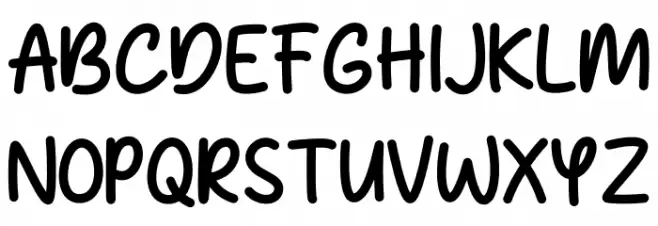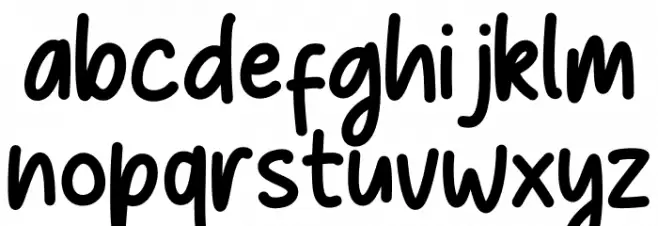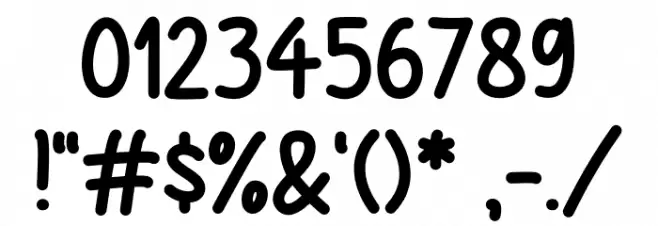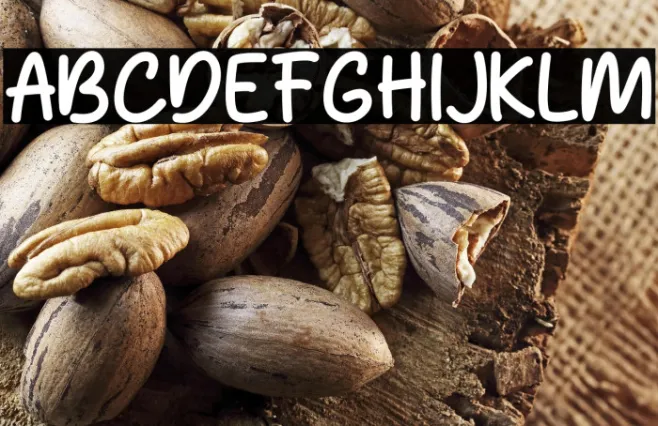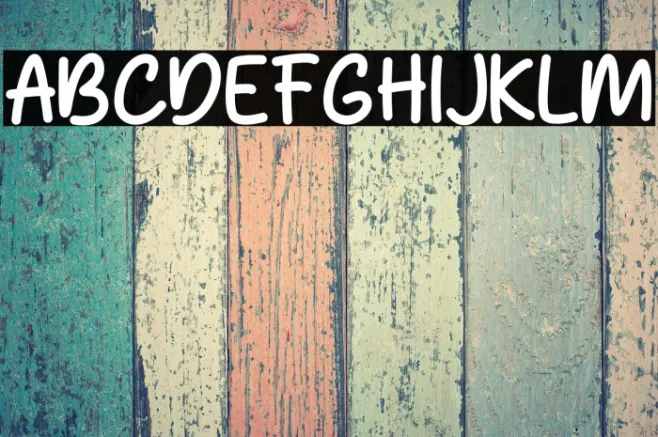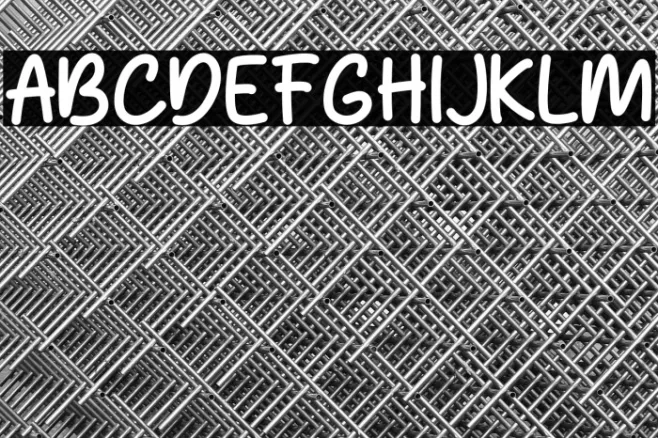
Winter Night Font
Winter Night Description
This font features a playful and casual handwritten style, characterized by its rounded and slightly irregular letterforms. The strokes are bold and consistent, giving it a friendly and approachable appearance. The uppercase and lowercase letters maintain a uniform height, contributing to a cohesive look. Numbers and special characters are designed to match the overall style, ensuring versatility across different uses. The font's informal nature makes it ideal for projects that require a personal touch, such as greeting cards, invitations, or children's book covers. Its legibility and charm make it suitable for both digital and print media.
A playful, bold handwritten font with rounded, consistent strokes.
- Font: Winter Night
- Proposed Projects: Greeting cards, invitations, children's books, casual branding.
- Category: Handwritten
- Overall Style: Casual, Playful
- Use Case: Headlines, Logos, Informal Text